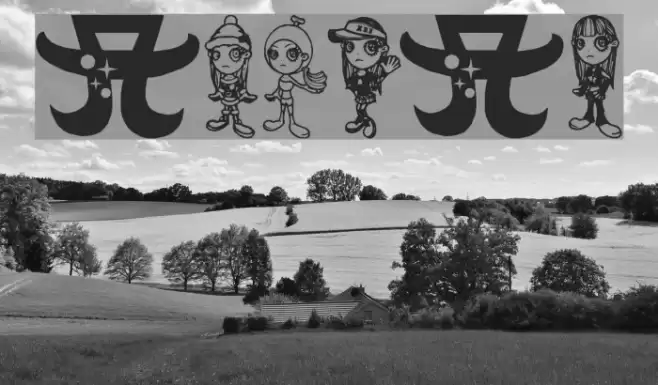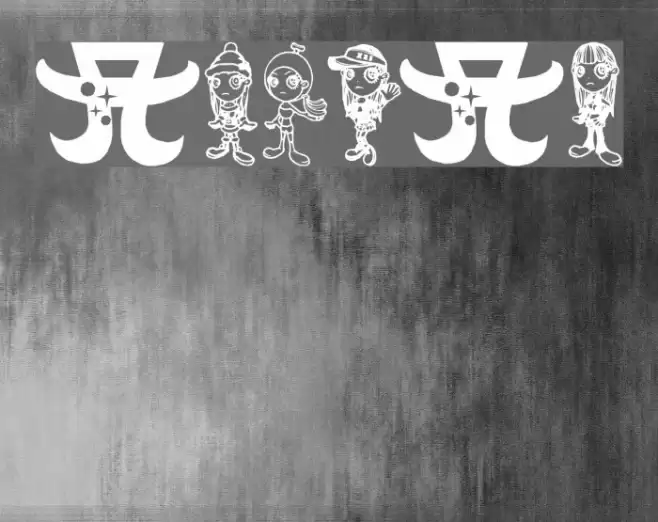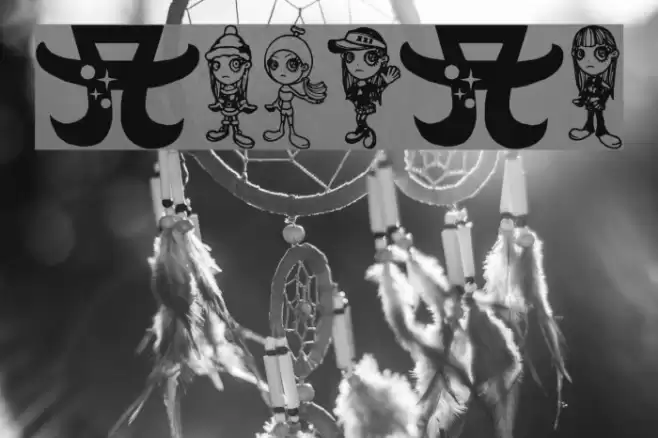
ayupan Font
ayupan Description
A highly decorative and playful font composed of cartoon-style characters and illustrations, each glyph representing a unique figure or scene rather than traditional letterforms. The style is whimsical, with thick lines and exaggerated features, making it more of a pictorial or dingbat font than a standard text font.
Cartoonish, character-based decorative font with playful illustrations from Dingbats fonts.
- Proposed Projects: Children's books, party invitations, themed posters, novelty merchandise, branding for playful or youth-oriented products.
- Overall Style: Decorative, Playful, Cartoonish
- Use Case: Logos, Posters, Themed Graphics, Children's Materials